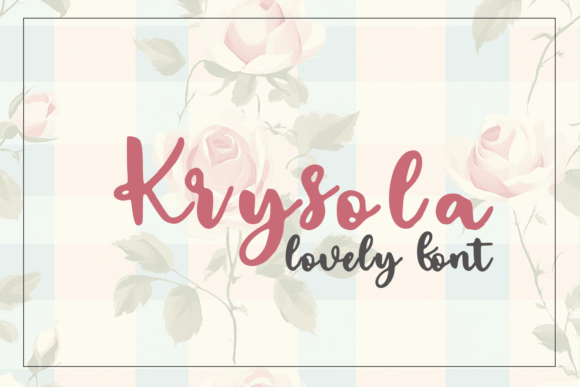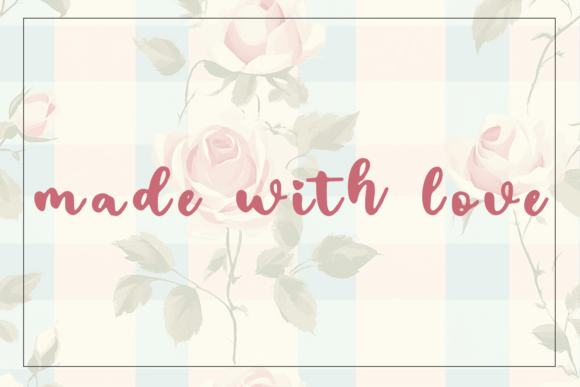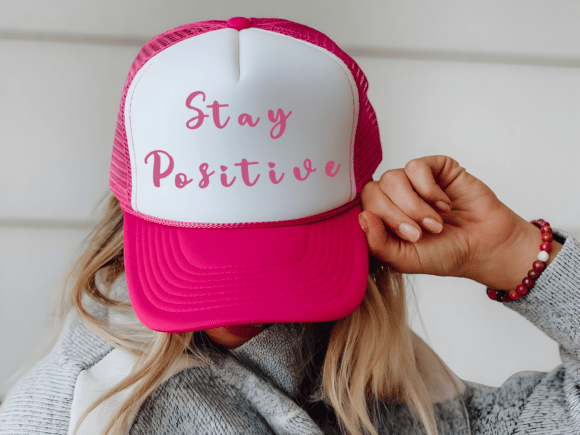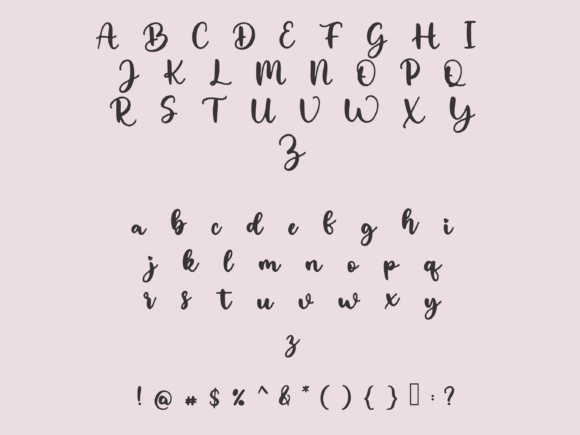
Krysola Font: Elegant Handwritten Script for Wedding & Feminine Branding
About the Krysola Font
Introducing the Krysola Font, a beautifully crafted typeface designed to elevate your creative projects. Krysola is a unique handwritten font that captures the elegance of a handwritten note with the charm of soft, modern femininity. Flowing curves, airy spacing, and subtly imperfect strokes give it a natural, organic feel—perfectly poised between playful and poised.
Designed to radiate warmth and aesthetic beauty, Krysola is ideal for projects that need a personal, stylish touch. Whether you’re designing wedding invitations, lifestyle branding, beauty packaging, or social content, this font adds a soft-spoken voice that feels intimate and intentional.
Krysola Font Usage Examples
Krysola Font Example